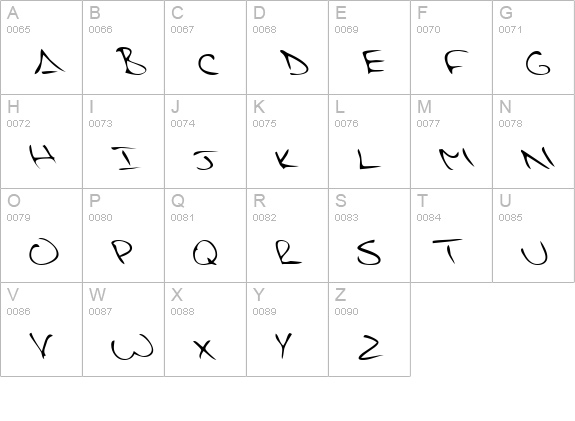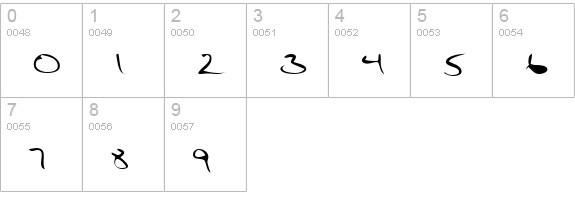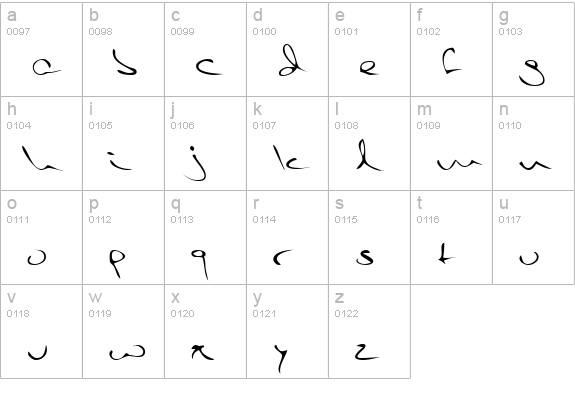
NoviasHand Regular Font Details
NoviasHand Regular is the standard, neutral variant in the NoviasHand typeface family \xE2\x80\x94 well suited to general body text, paragraphs, and standard typographic work.
NoviasHand Regular is a charming and elegant handwritten font that exudes a sense of romanticism and sophistication. With its delicate curves and flowing strokes, this font is perfect for adding a touch of grace to any project. Whether you're designing wedding invitations, greeting cards, or branding materials, NoviasHand Regular will bring a sense of beauty and style to your work. What makes NoviasHand Regular even more appealing is that it is available for free download at FontsMarket.com. This means that you can easily access this stunning font and use it in your projects without any cost. Don't miss out on the opportunity to enhance your designs with the timeless elegance of NoviasHand Regular. Download it today and let your creativity shine!